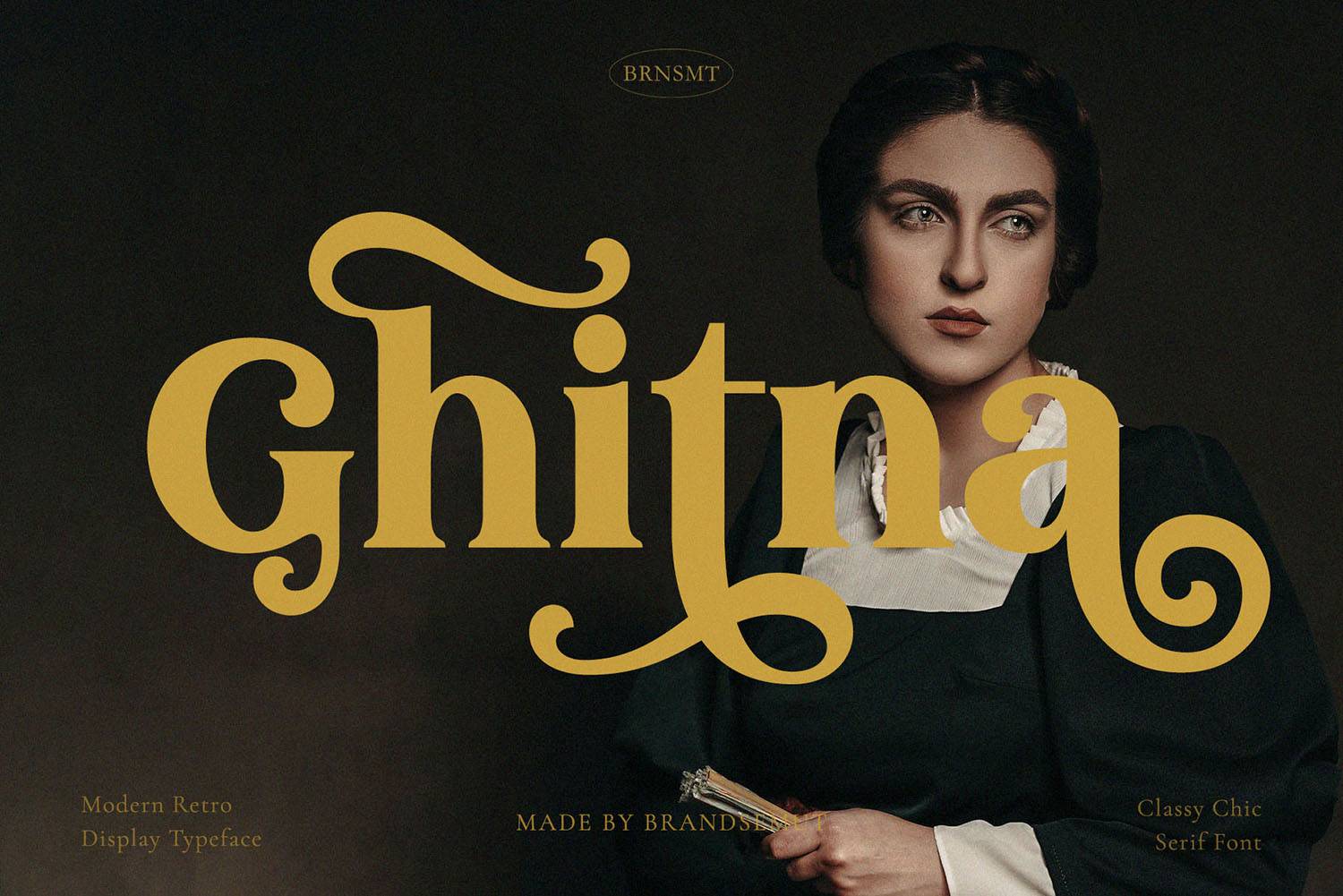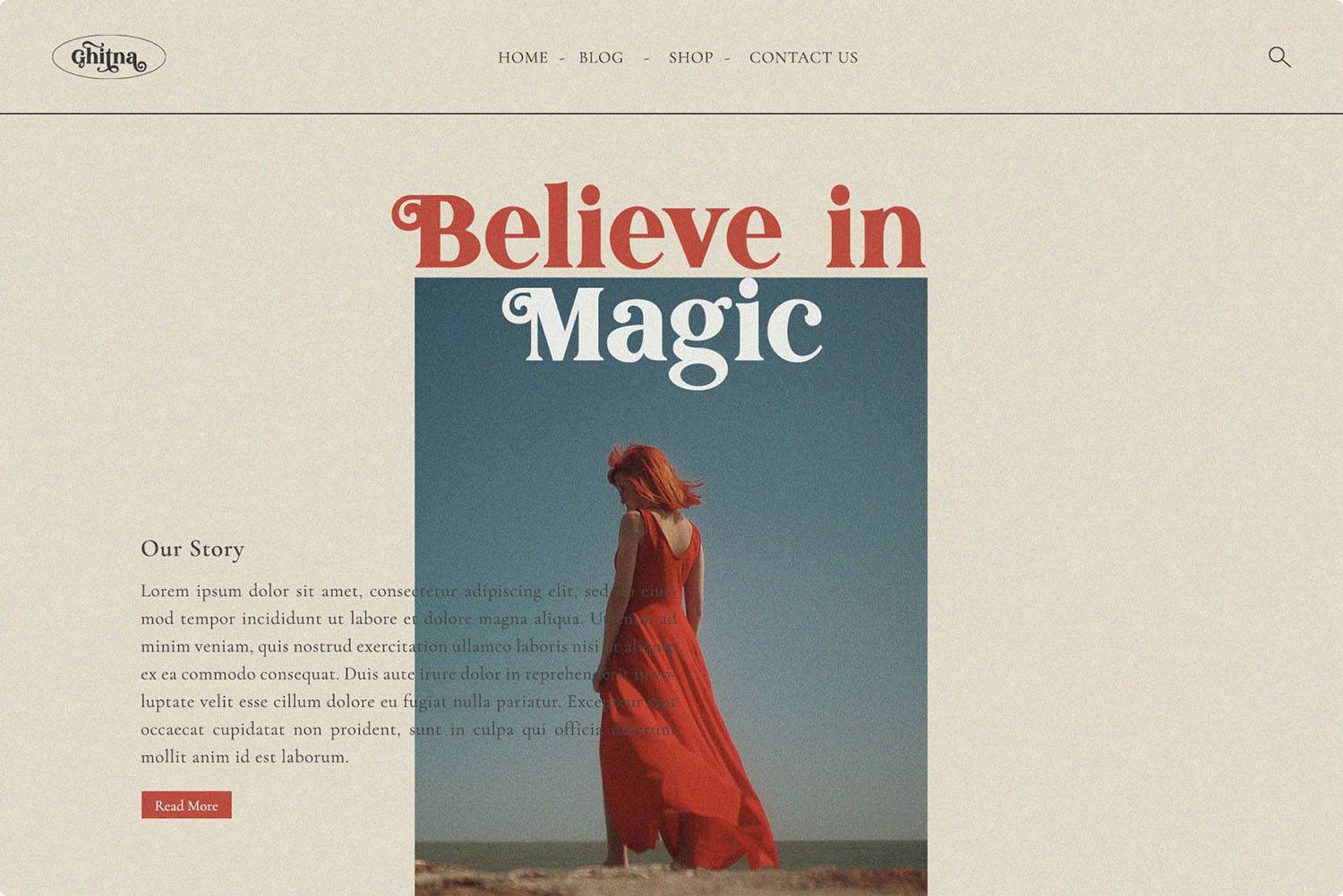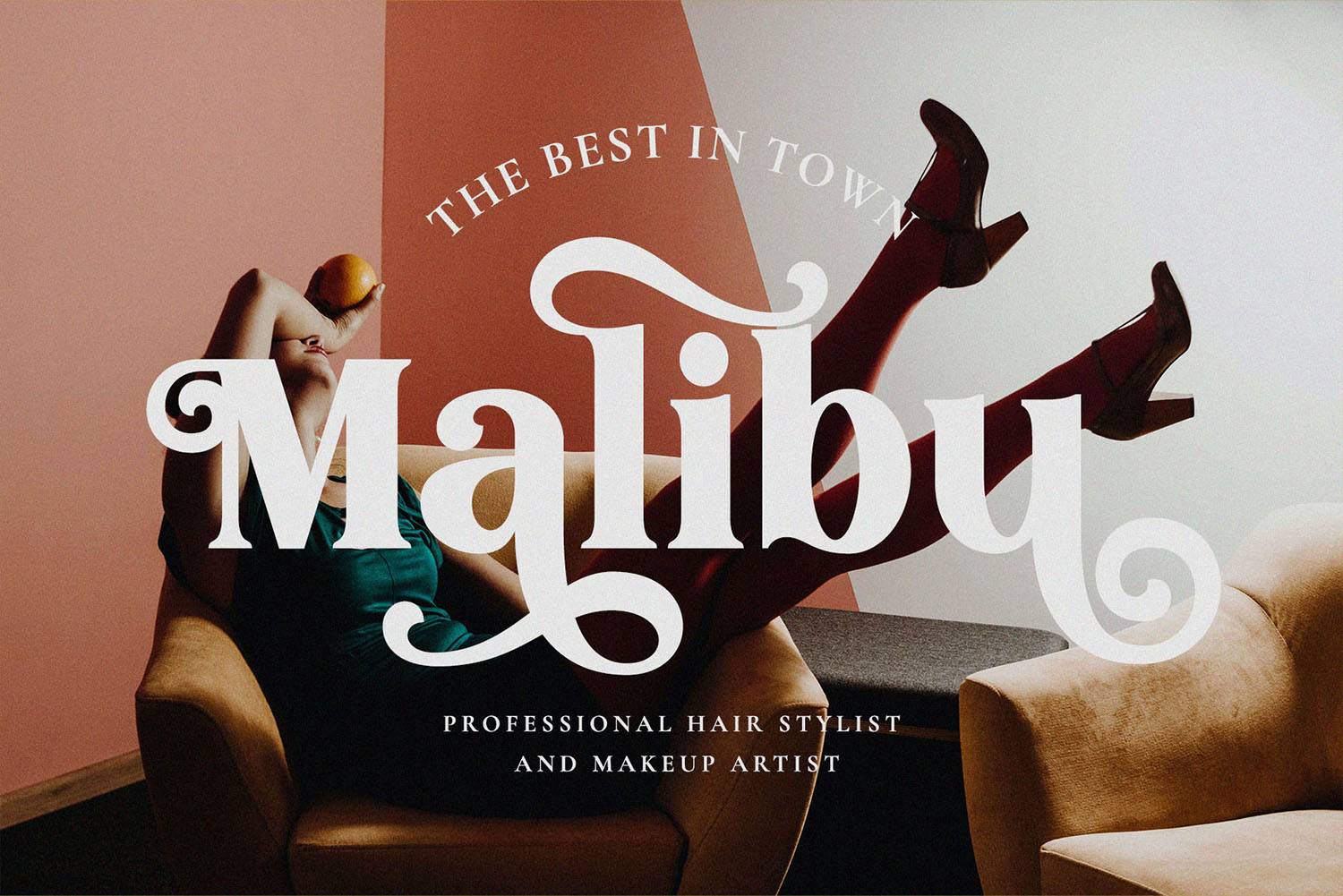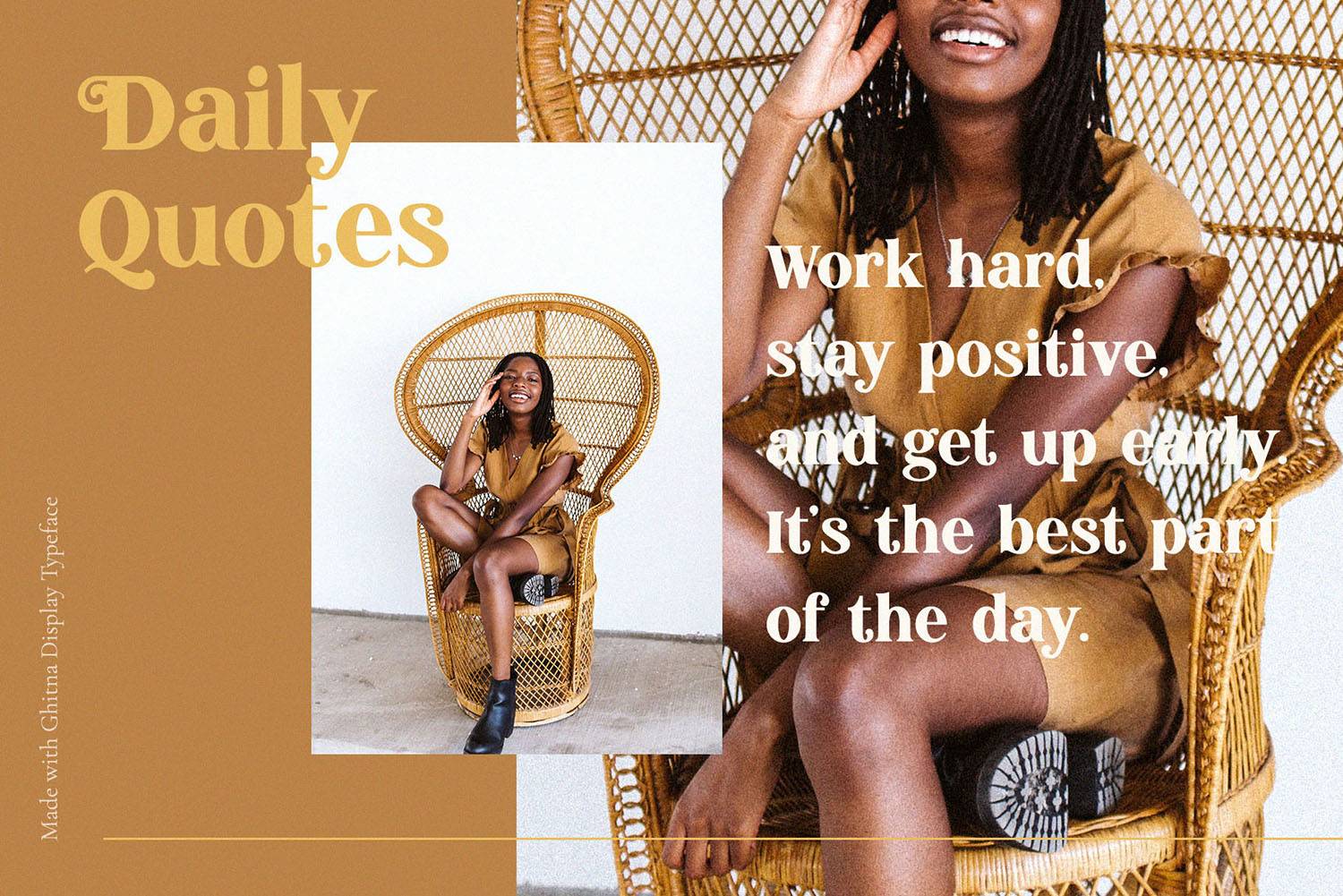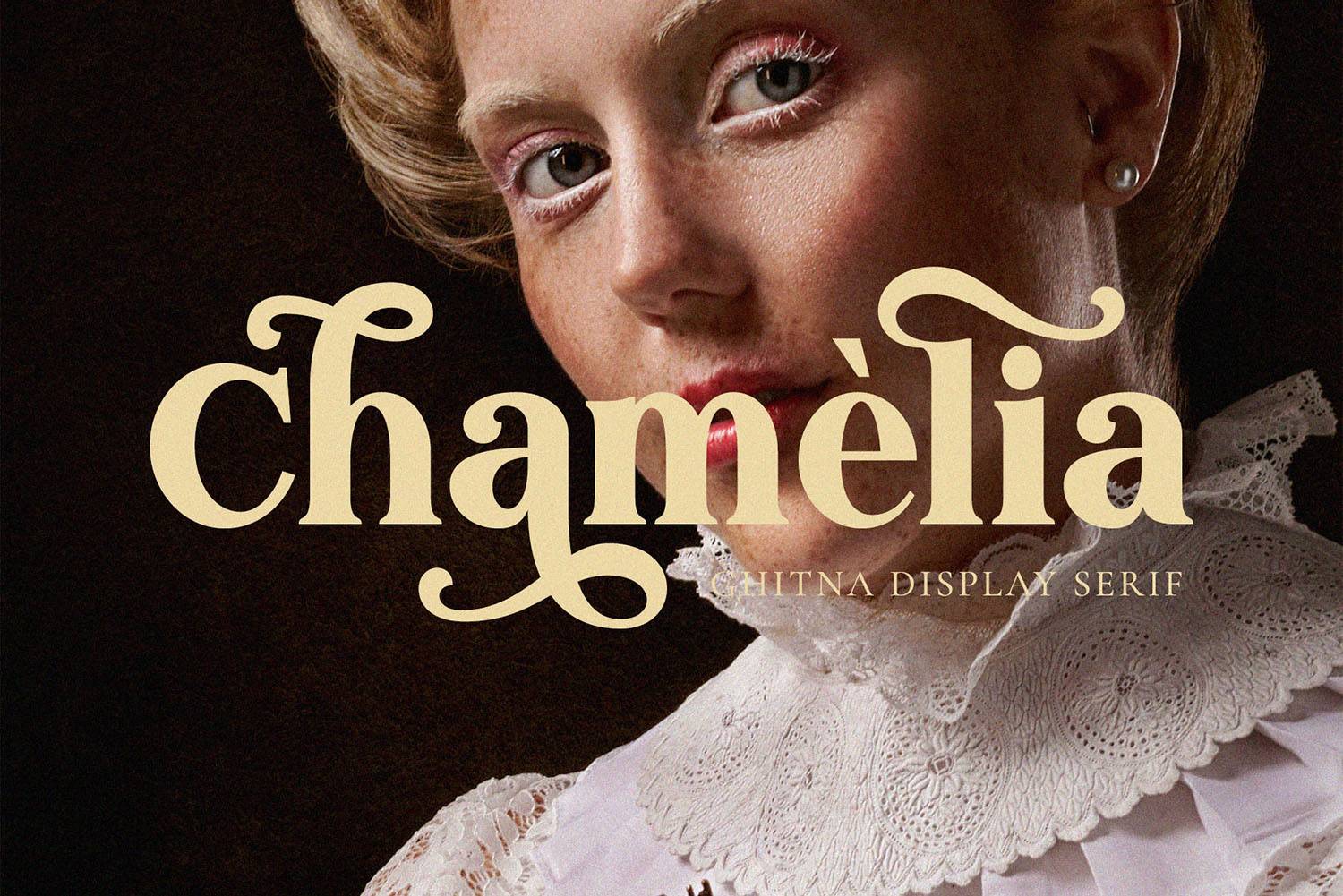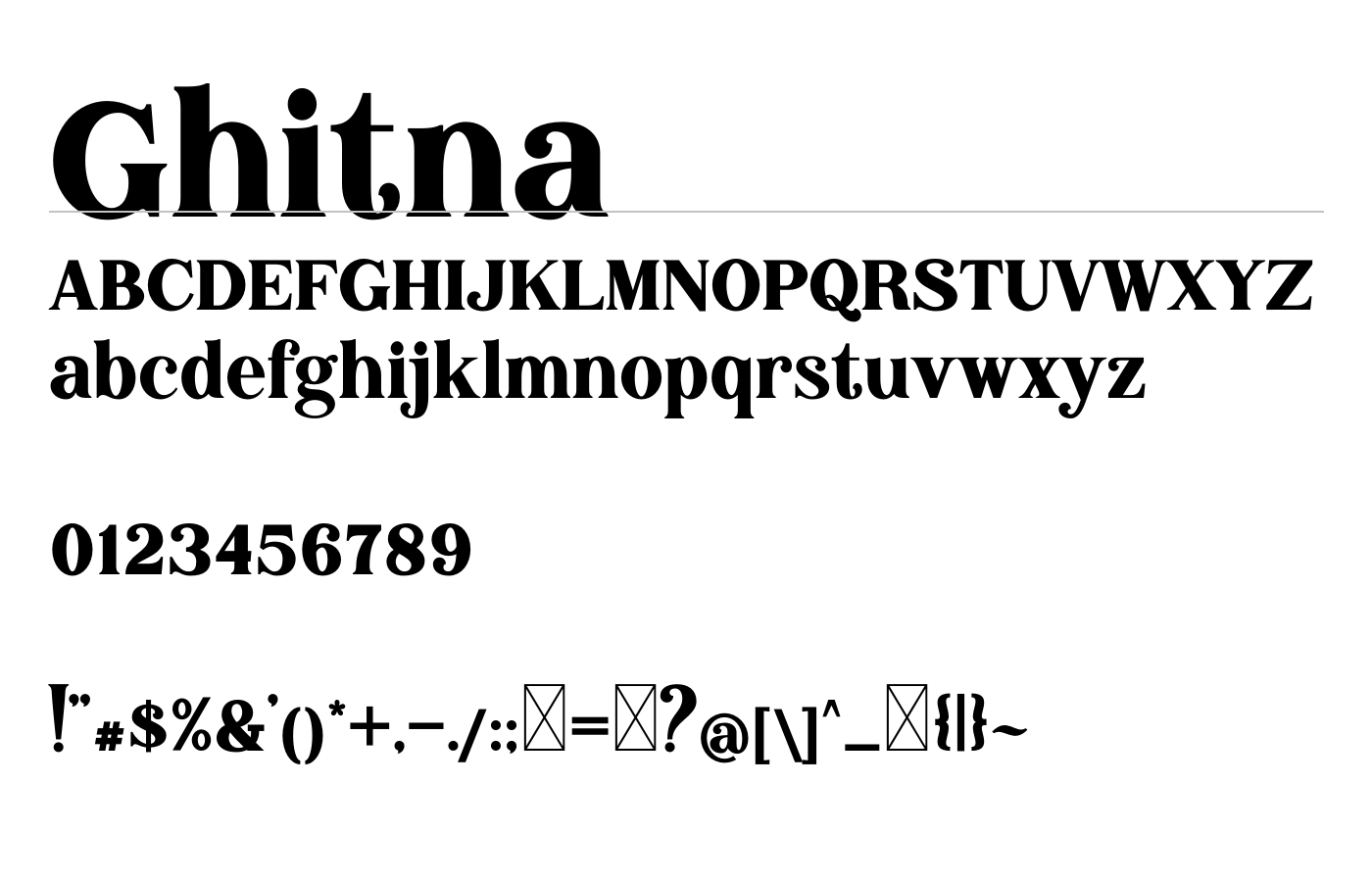
Ghitna is a bold serif font with strong contrast between thick and thin strokes, featuring classic bracketed serifs that give it a traditional yet robust appearance. Its sturdy, slightly condensed letterforms, combined with a high x-height and distinctive details like the single-story lowercase "a" and unique tail on the "Q," make it ideal for impactful headlines and editorial use. This font conveys a sense of authority and elegance, making it well suited for branding, magazines, and packaging that demand a timeless, confident style.
Ghitna Font
About Ghitna Font
| Font family | Ghitna Font |
| Designer | Brandsemut |